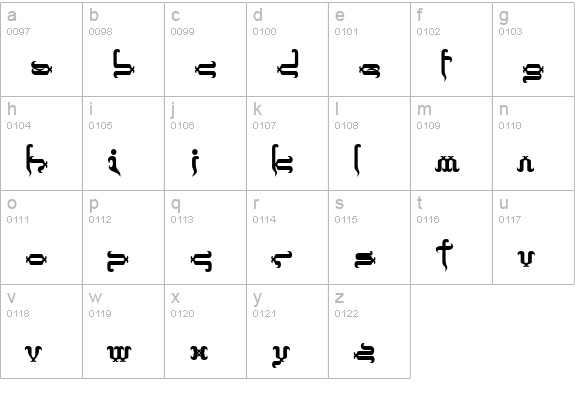
Tobin Tax Font Details
Introducing Tobin Tax, a versatile and elegant font that effortlessly elevates any design project. With its clean lines and refined curves, Tobin Tax exudes a sense of sophistication and modernity, making it the perfect choice for both digital and print media. This font is not only visually appealing, but it also offers a seamless reading experience, thanks to its carefully balanced letterforms and clear spacing. Whether you're designing a logo, a website, or a promotional material, Tobin Tax will ensure that your message is communicated with utmost clarity and style. What sets Tobin Tax apart is not just its aesthetic appeal, but also its accessibility. We believe that great design should be available to everyone, which is why we are delighted to offer Tobin Tax as a free font. Yes, you read that right - Tobin Tax is freely available to download at FontsMarket.com. Now, you can create stunning designs without worrying about breaking the bank. But don't let its price tag fool you - Tobin Tax is a font that rivals even the most expensive options on the market. Its meticulous craftsmanship and attention to detail make it a true gem in the world of typography. Whether used for headlines, body text, or even as an accent font, Tobin Tax will add a touch of elegance and sophistication to your designs. So, what are you waiting for? Unleash your creativity and elevate your designs with Tobin Tax. Download it for free at FontsMarket.com and discover the limitless possibilities that this remarkable font has to offer.